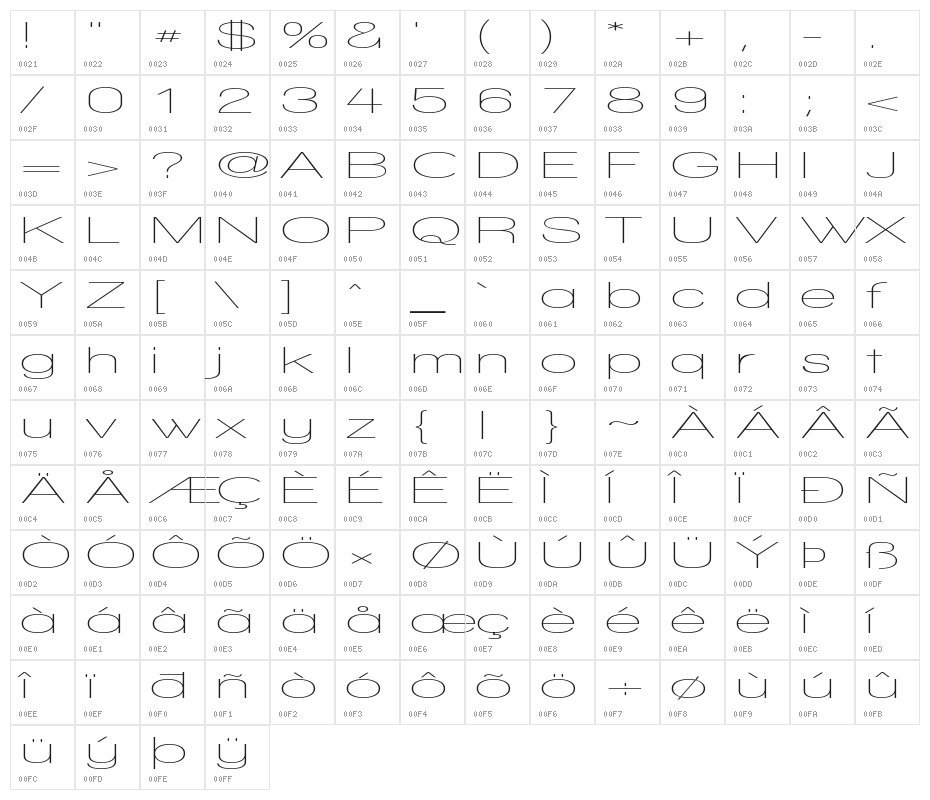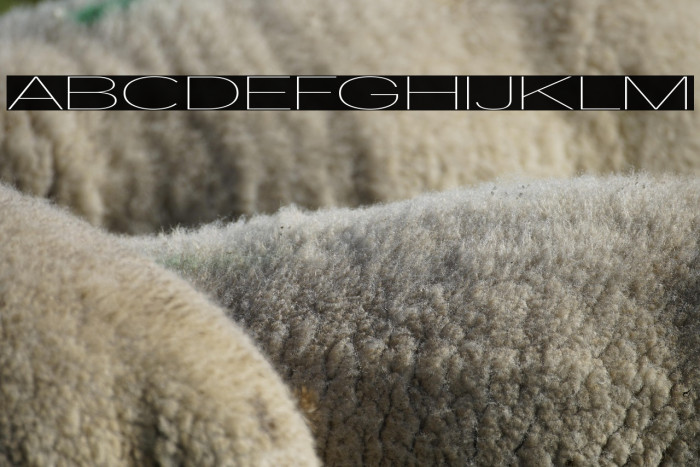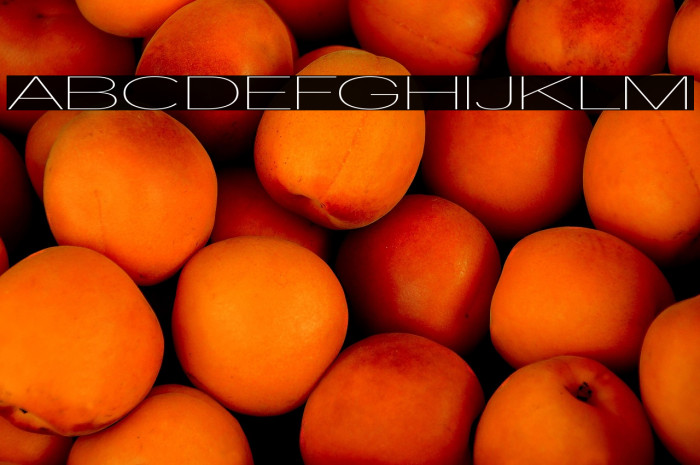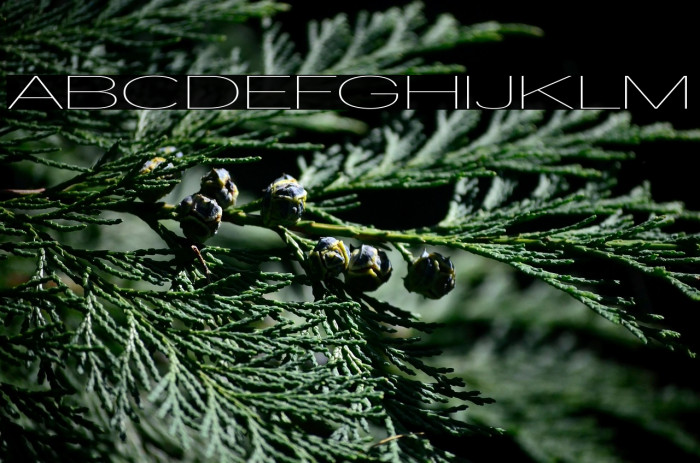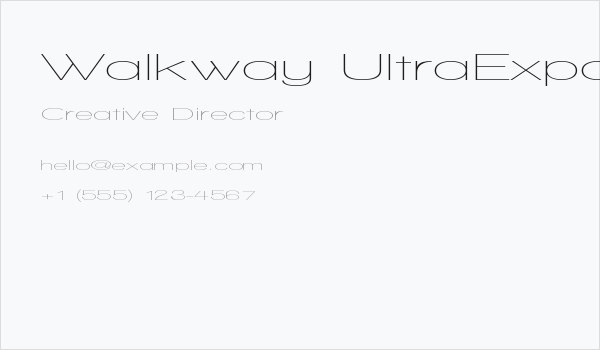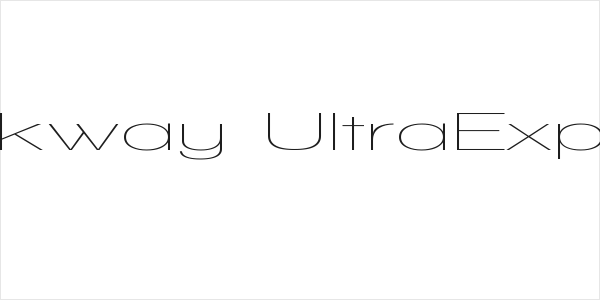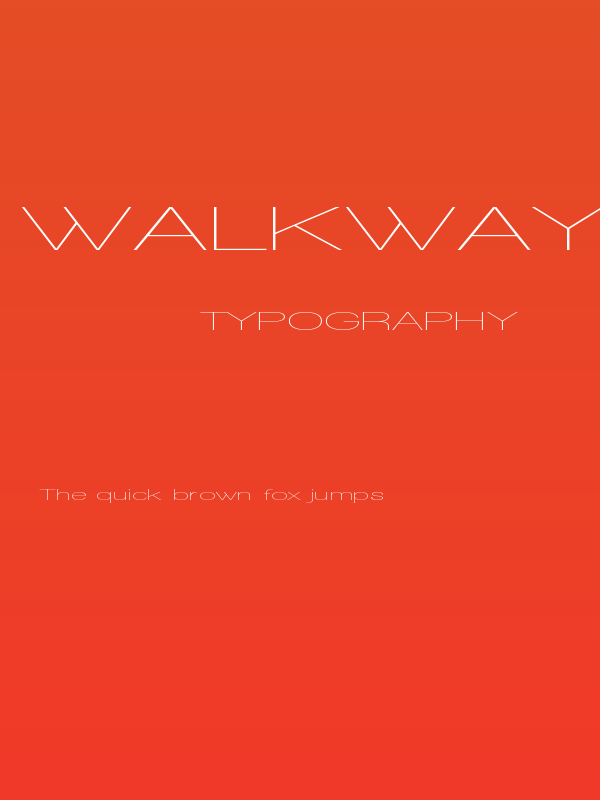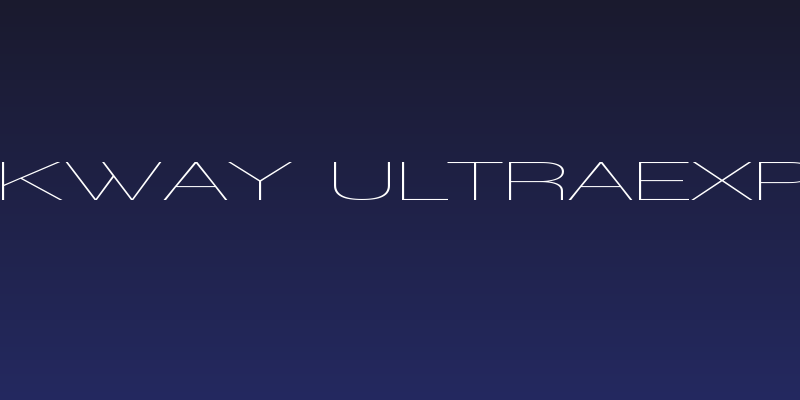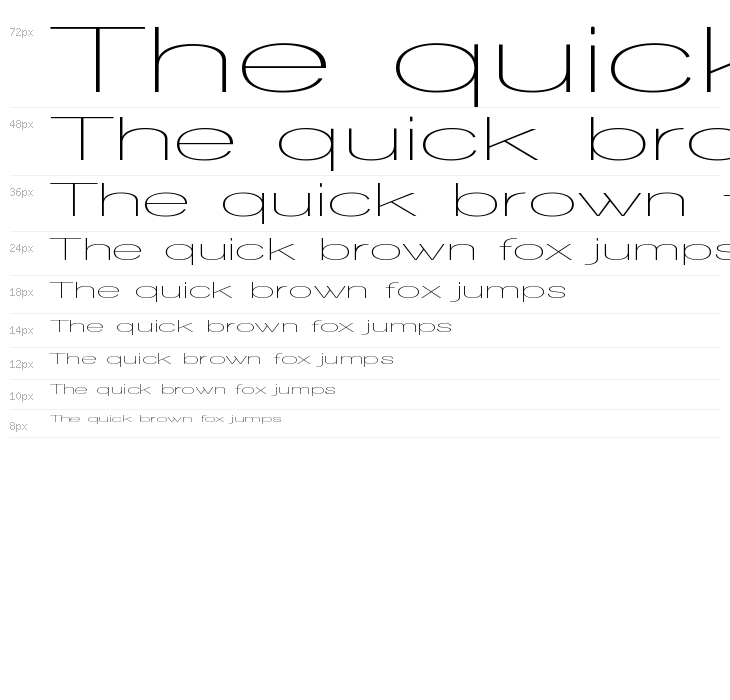
Walkway UltraExpand Font
Walkway UltraExpand Description
This font features a sleek, ultra-expanded design with a modern and minimalist aesthetic. The characters are thin and elongated, giving a sense of elegance and sophistication. The uppercase and lowercase letters maintain a consistent width, creating a harmonious and balanced look. The numerals and special characters follow the same design principles, ensuring uniformity across all glyphs. The font's clean lines and open spacing make it highly legible, even at smaller sizes. Its contemporary style is suitable for a variety of design applications, from digital media to print.
| Use Case | Headlines, Logos, Digital interfaces |
| Proposed Projects | Ideal for branding, advertising, editorial design, and digital interfaces. |